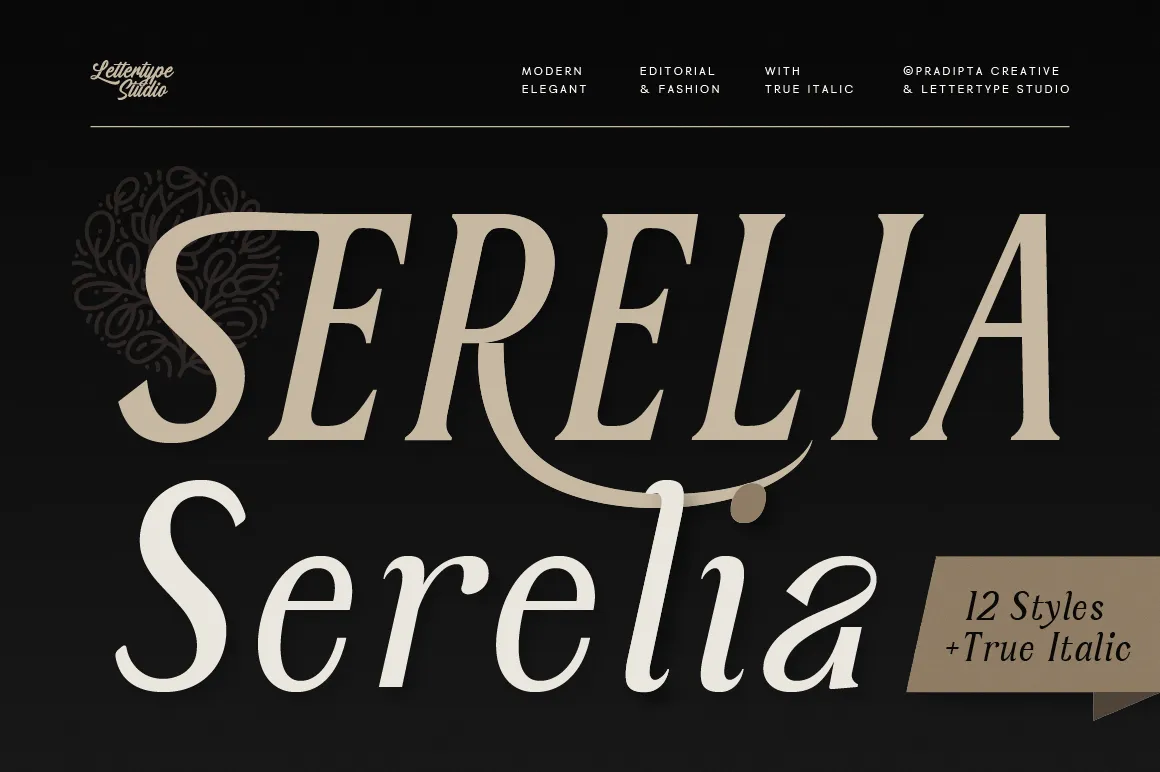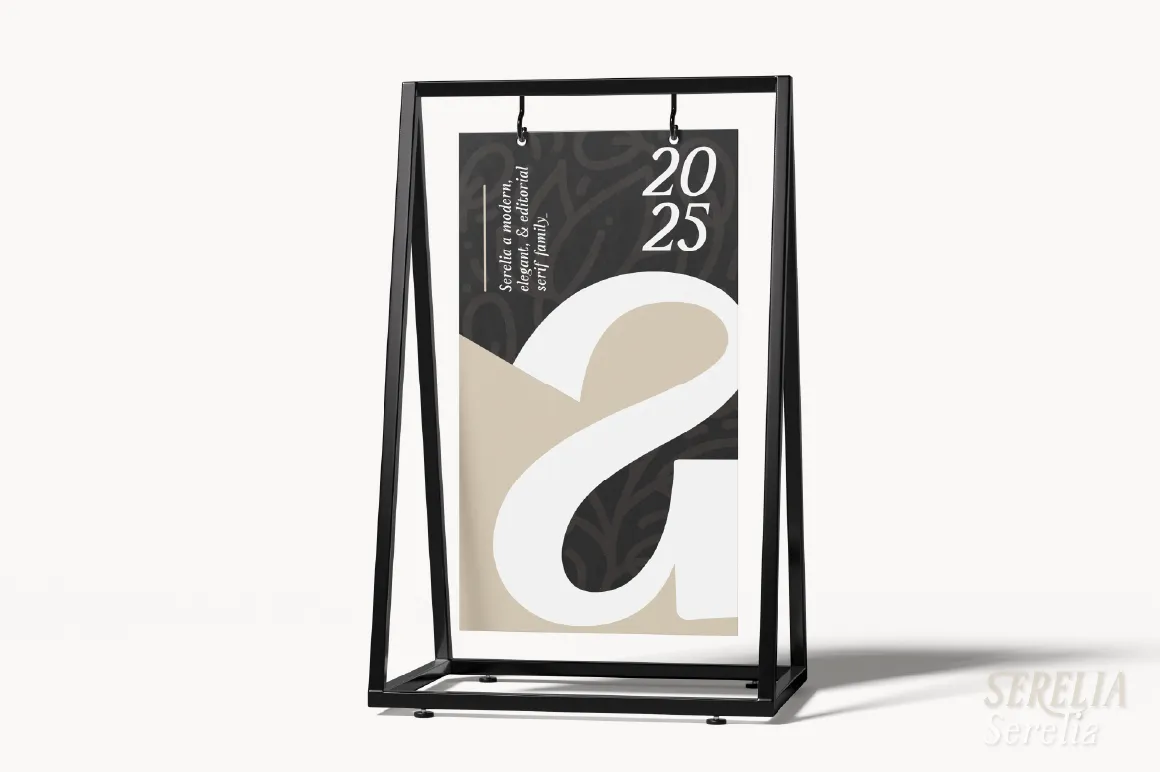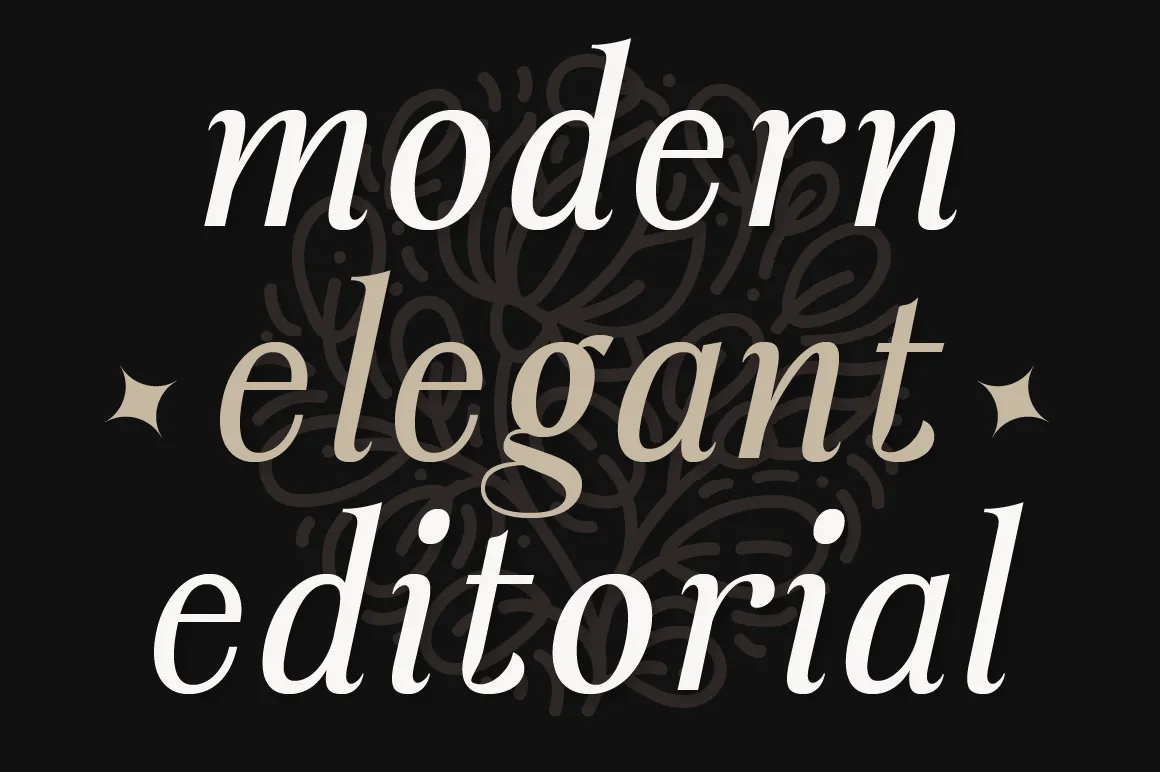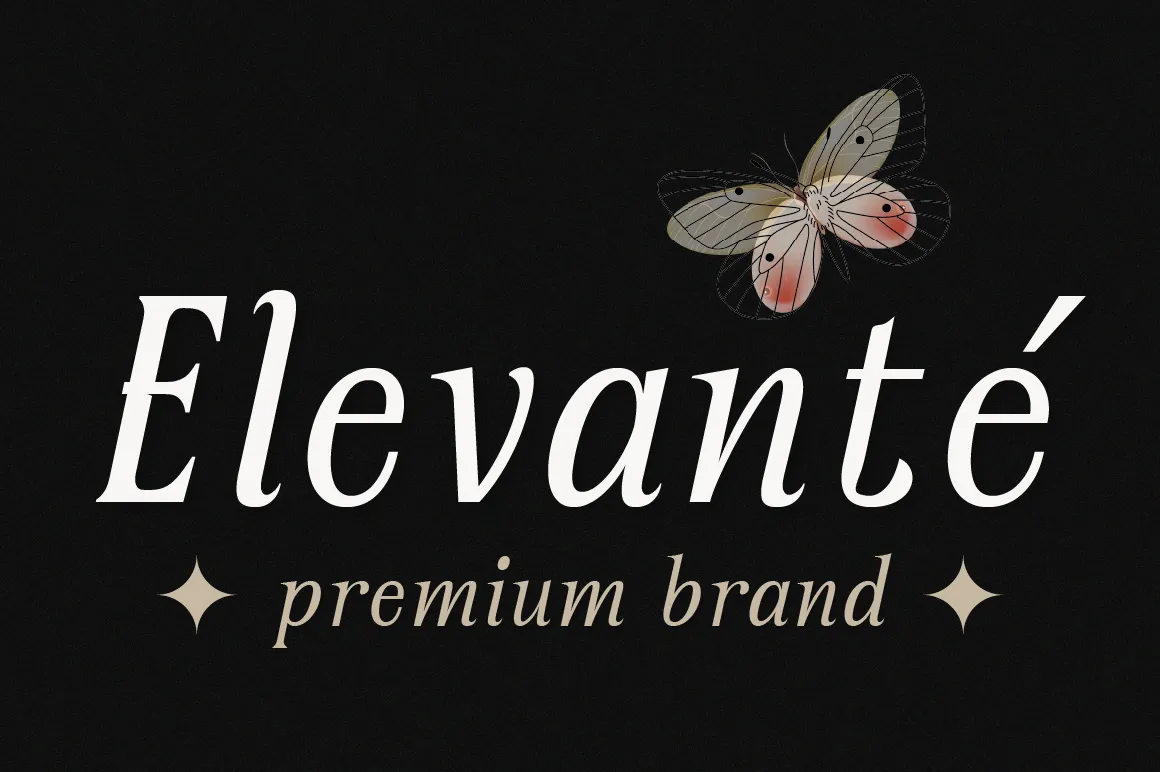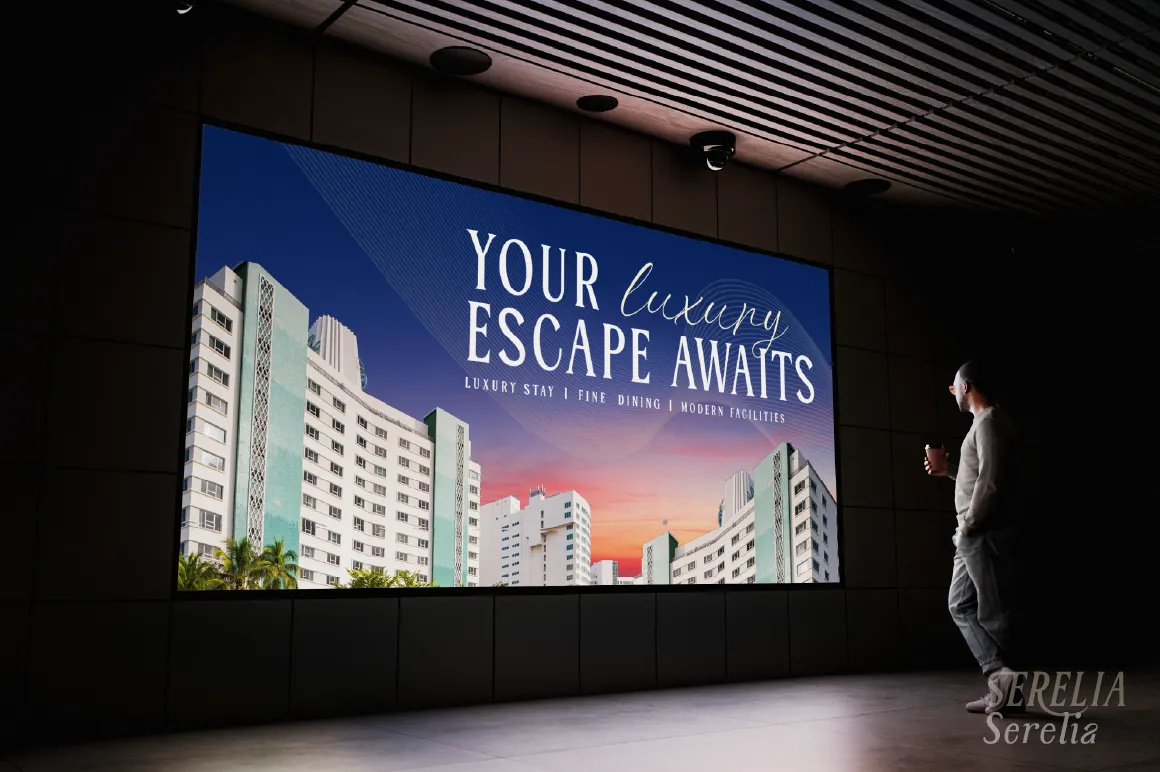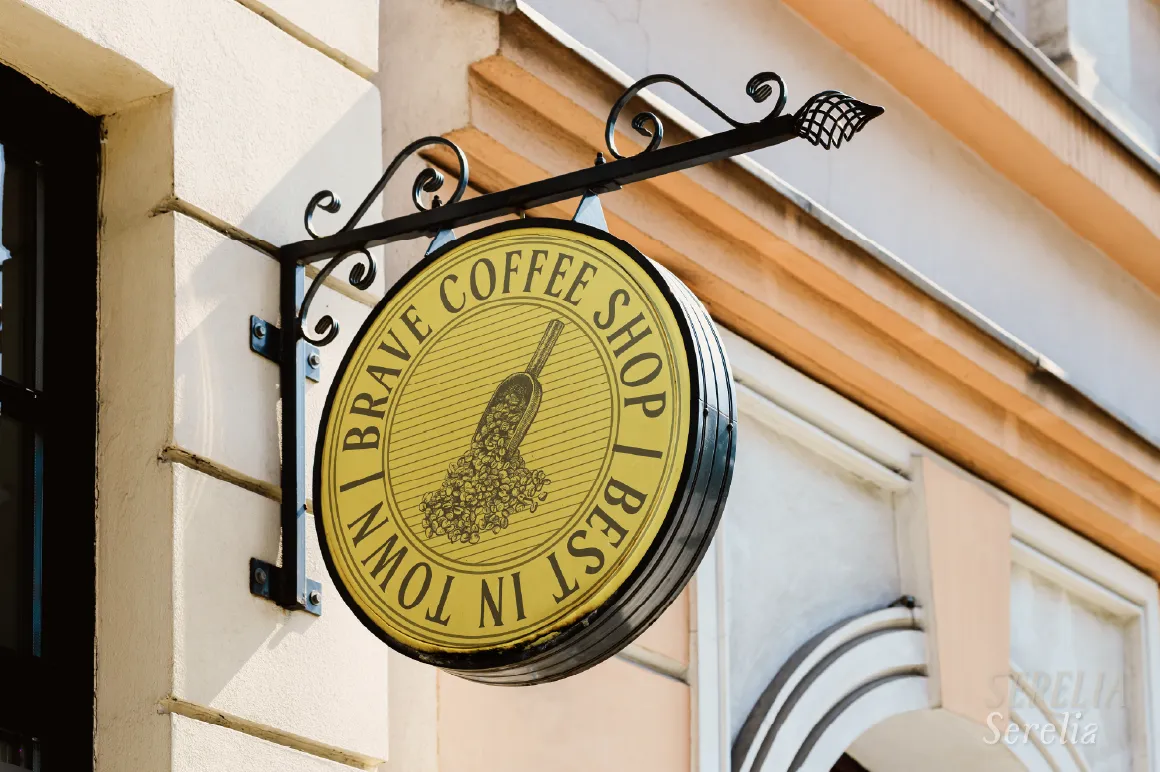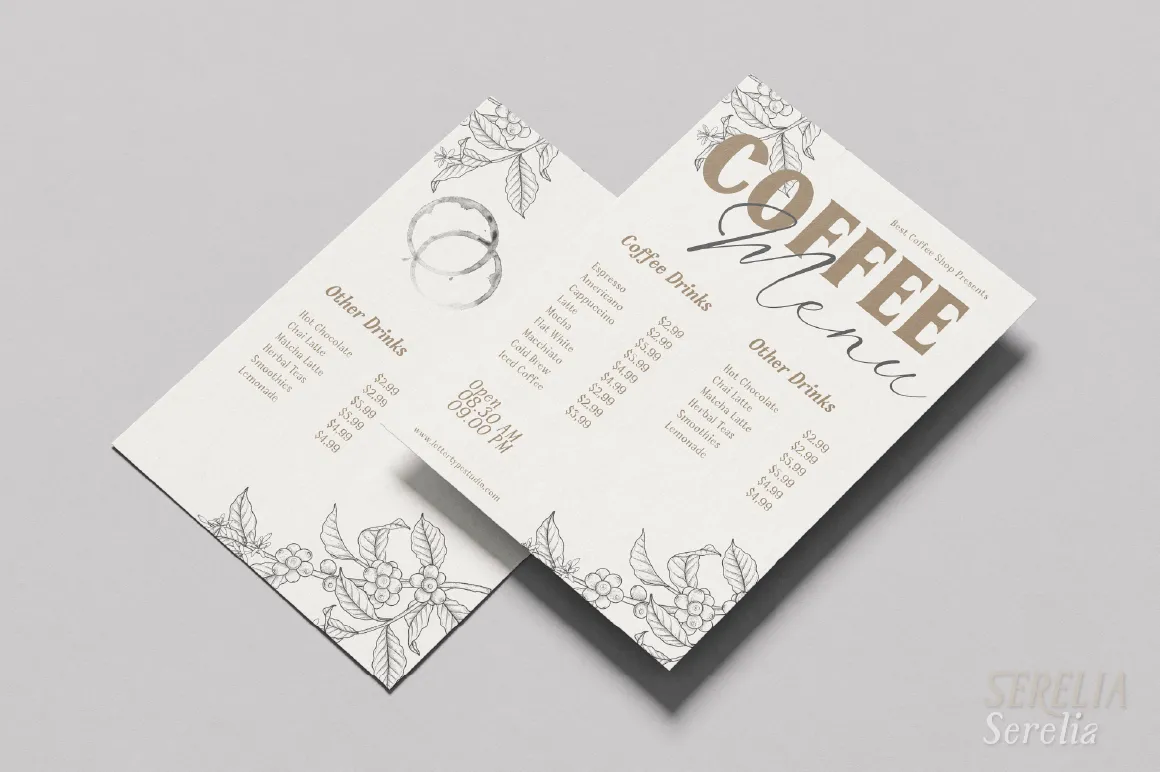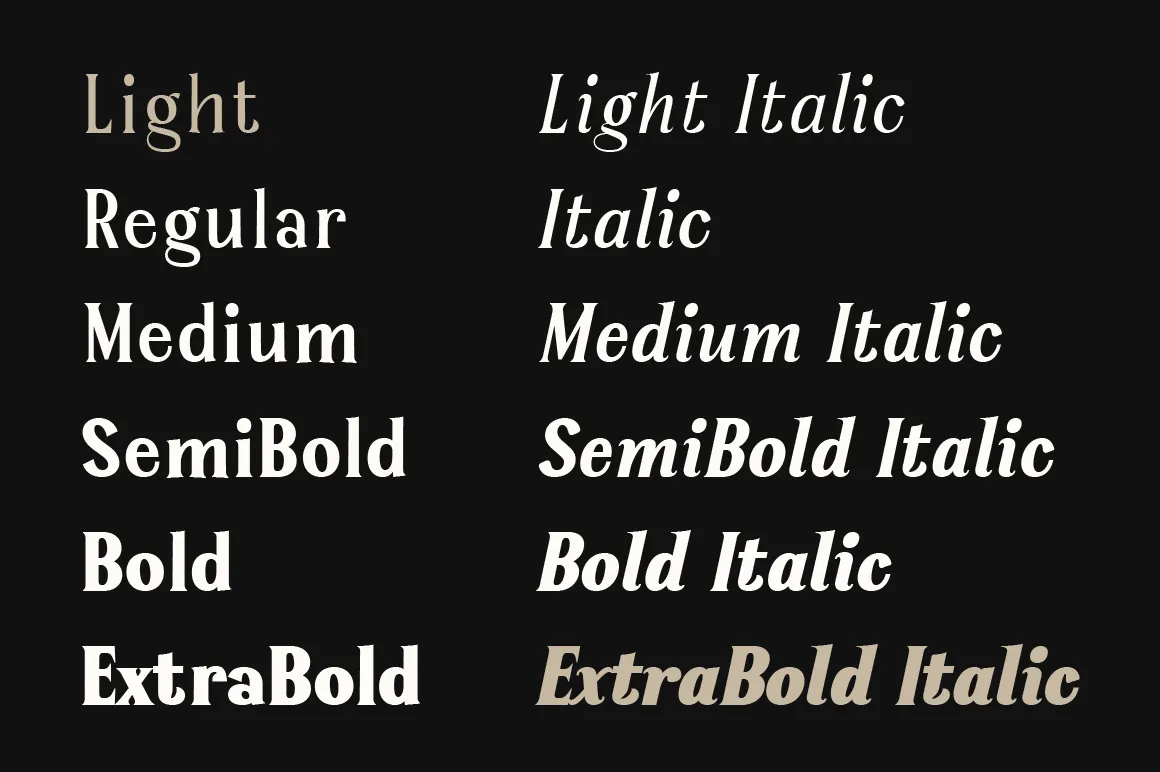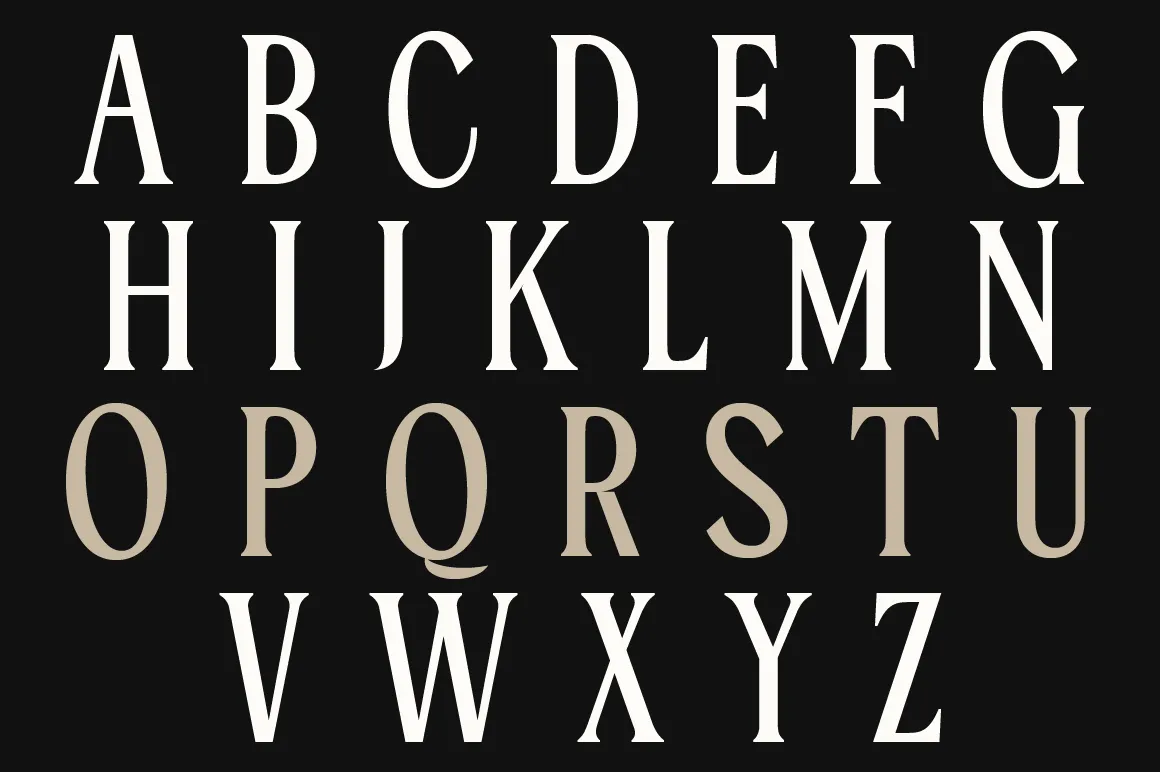
Serelia was crafted to merge modern luxury with the soul of classic editorial typography. The design process began with a focus on expressive curves and refined contrast, then evolved with a deep emphasis on alternates — giving designers more personality in each composition. From A–Z and a–z variants, to the sculpted signature-style R and multiple ampersand shapes, Serelia brings a premium, crafted feel that elevates any brand presence.
To support expressive layouts, Serelia includes a rich set of custom ligatures such as CA, CE, CI, CO, CU, CH, CC, CQ, AA, EE, FF, GG, OO, QQ, SS, TT, and LA — all designed with luxury editorial rhythm. These ligatures help logos, magazine titles, and packaging headlines feel more refined and bespoke. Combined with 12 styles (6 Upright + 6 True Italic), Serelia becomes a complete serif ecosystem built for versatility.
Whether used for branding, food & beverage labels, creative agencies, or high-fashion content, Serelia brings a sense of exclusivity and handcrafted identity. Every curve has been tested across screens and print environments to ensure clarity, stability, and elegance. Serelia stands not only as a typeface but as a signature experience from Lettertype Studio.
Serelia Features:
• 12 Styles total (6 Upright + 6 True Italic)
• Regular & True Italic
• 54 Alternates & 31 Unique Ligatures
• 523 Glyphs Total
• 260+ Languages Support
Perfect For:
• Luxury Branding
• Editorial Headlines & Magazines
• High-End Packaging Design
• Creative Agency Identity Systems
• Logo & Title Typography
Serelia